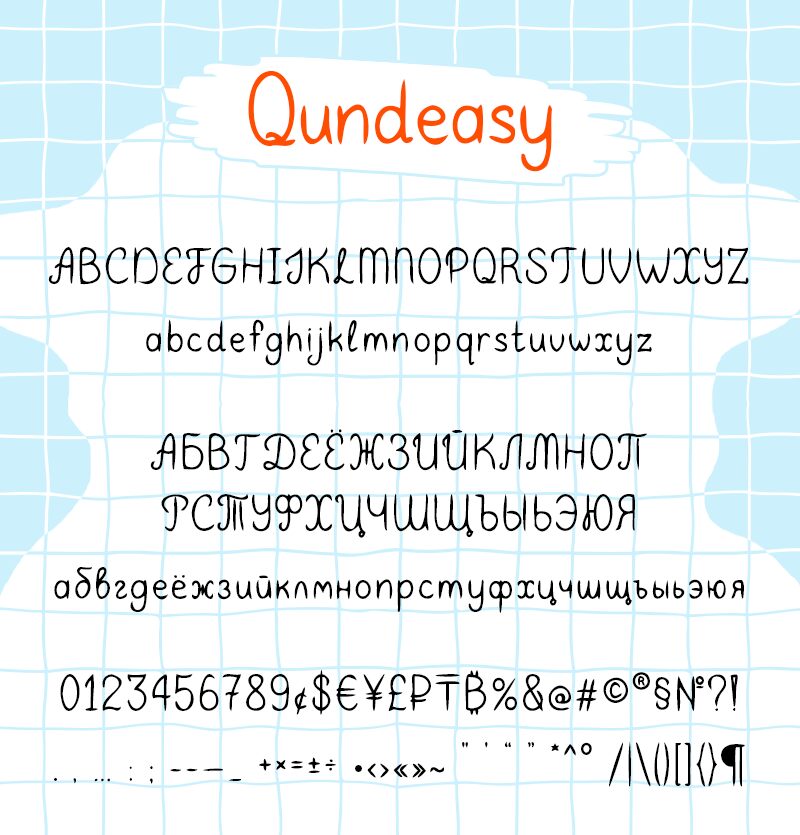
Introducing Qundeasy, a whimsical handwritten font designed by Tanya Savchenko. With its light weight and playful style, this font is perfect for adding a touch of personality to your projects. Use it for invitations, greeting cards, social media graphics or even on your blog. Qundeasy is versatile and can be used for both personal and commercial projects. Its unique charm is sure to catch the eye of anyone who sees it. Try it out today and see how Qundeasy can enhance your next design project!
Qundeasy is a sloppy and cute handwritten font. First of all, it is suitable for handmade style design. Сan create interesting logos, posters, banners, social media creatives, postcards and greetings with this font.